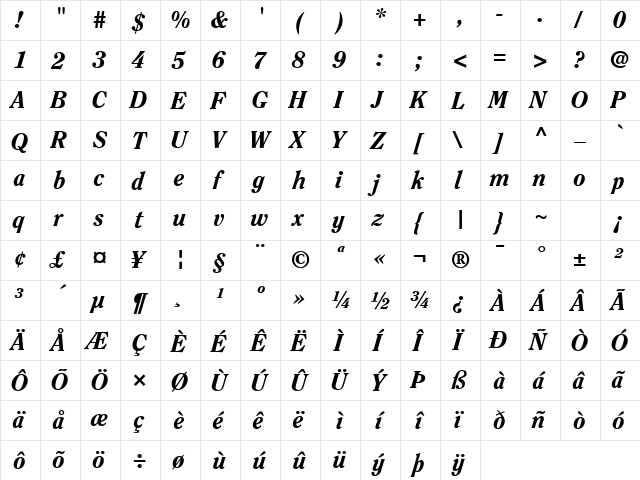
Clearface Black SSi Extra Bold Italic Font Preview
Design Context for Clearface Black SSi Typeface
Clearface Black SSi takes a measured approach to typography — its balanced proportions and neutral character make it a reliable workhorse for both digital and print work. The dynamic lean of this cut emphasises speed and emphasis in any layout. The heavy weight commands attention and anchors typographic hierarchies.
Pro Tip: Use Clearface Black SSi for emphasis, pull quotes, and subheadings where its slanted energy can add rhythm to the layout.